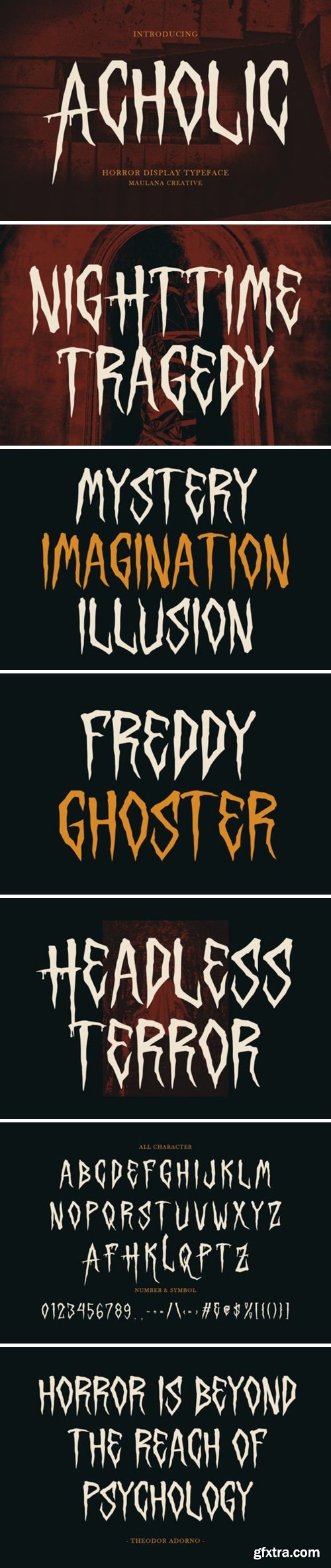
This font looks like the design element for bone-chilling projects such as haunted houses and Halloween midnight movies. This font is one that the ambiance of horror is available in every way is used, invitations, postcards, posters, and headings for Halloween events.